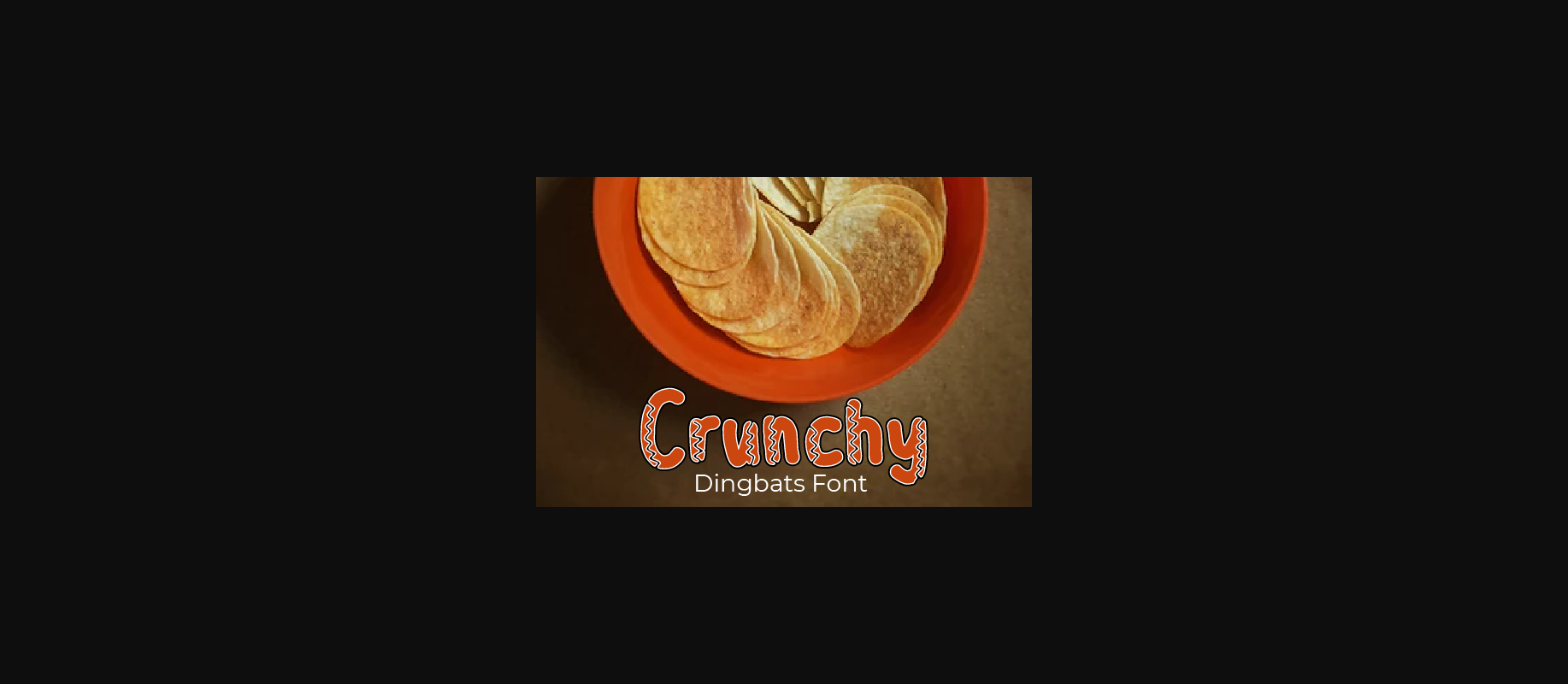
HomeDecorative FontsCrunchy Font Decorative Fonts Crunchy Font FacebookXPinterestWhatsApp 1 of 3 About Crunchy Font Crunchy is a unique and quirky decorative font. Create interesting designs with this simple and friendly font! DOWNLOAD NOW People also explored Cute Bunny Font Piglets Font Duration Font Sambul Font Anker Font Beautiful Girl Font Bálsamo Curativo Duo Font Qucluck Font Hello Mellisa Font 420 0 TagsCrunchyCrunchy Font Previous articleSeptember Rain FontNext articleStripe Calm Font LEAVE A REPLY Cancel reply Comment: Please enter your comment! Name:* Please enter your name here Email:* You have entered an incorrect email address! Please enter your email address here Website: Save my name, email, and website in this browser for the next time I comment. Personal Use Free Indonesia Dermawan Personal Use Free Read more about this font Eva Personal Use Free Read more about this font Rogueland Personal Use Free Read more about this font Cheque Personal Use Free Read more about this font BLOG Using Fonts in Digital Marketing: Tips to Strengthen Your Brand Identity In the realm of digital marketing, every visual element plays a crucial role in shaping a brand's identity, and fonts are no exception. The... Elegant Wedding Invitation Fonts – Handwritten & Script Fonts Best Fonts for T-Shirt Design – Top 2025 Picks Transform Your Website: Elevate Your Typography with 7 Best Web Font Generators